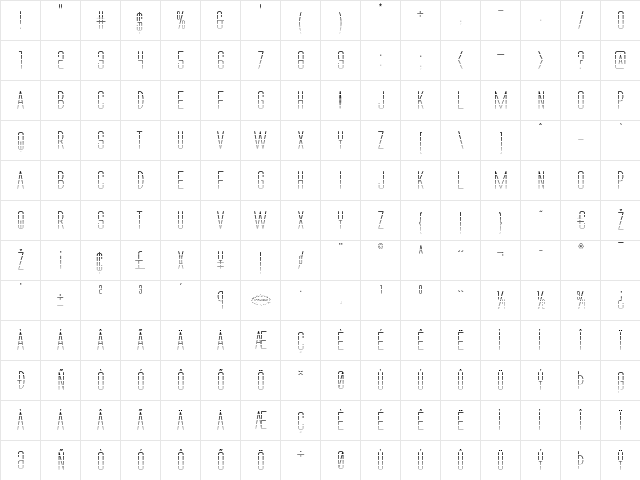
Alien League II Gradient Regular
Design Context for Alien League II Gradient Typeface
Alien League II Gradient is a composed and adaptable typeface that performs quietly and consistently across a wide range of design contexts.